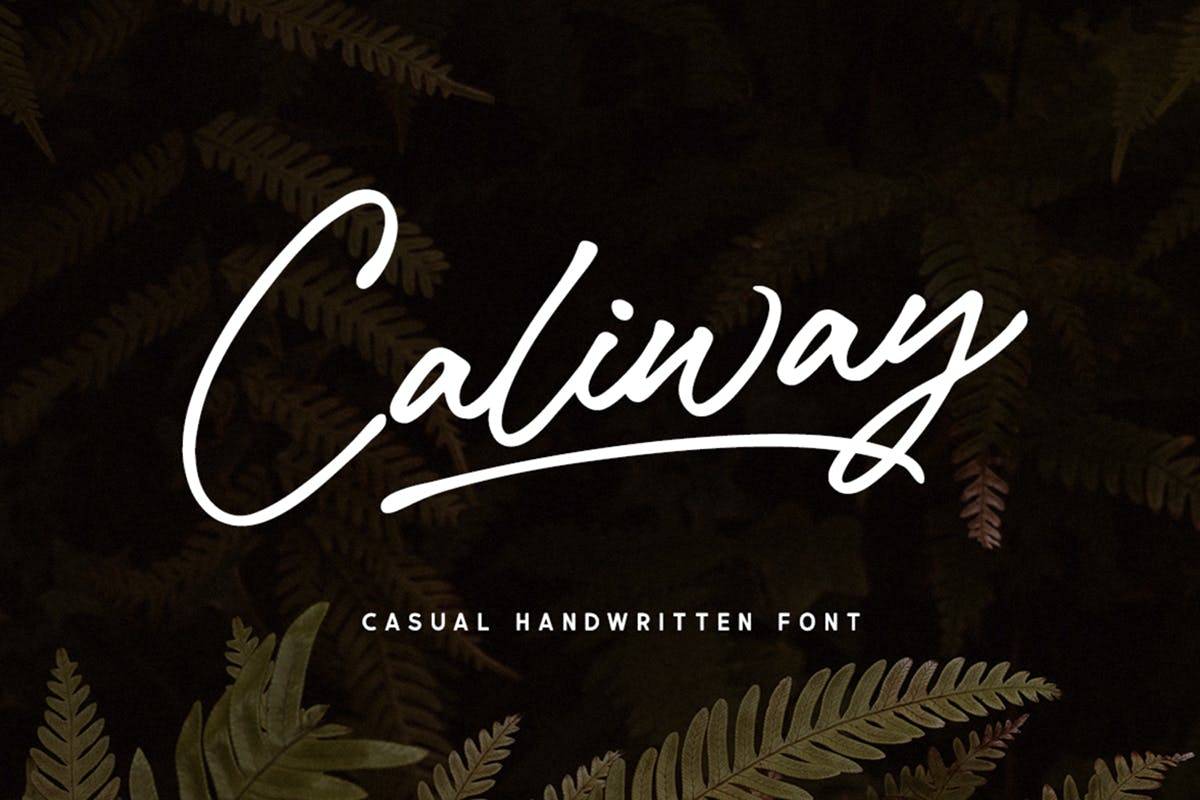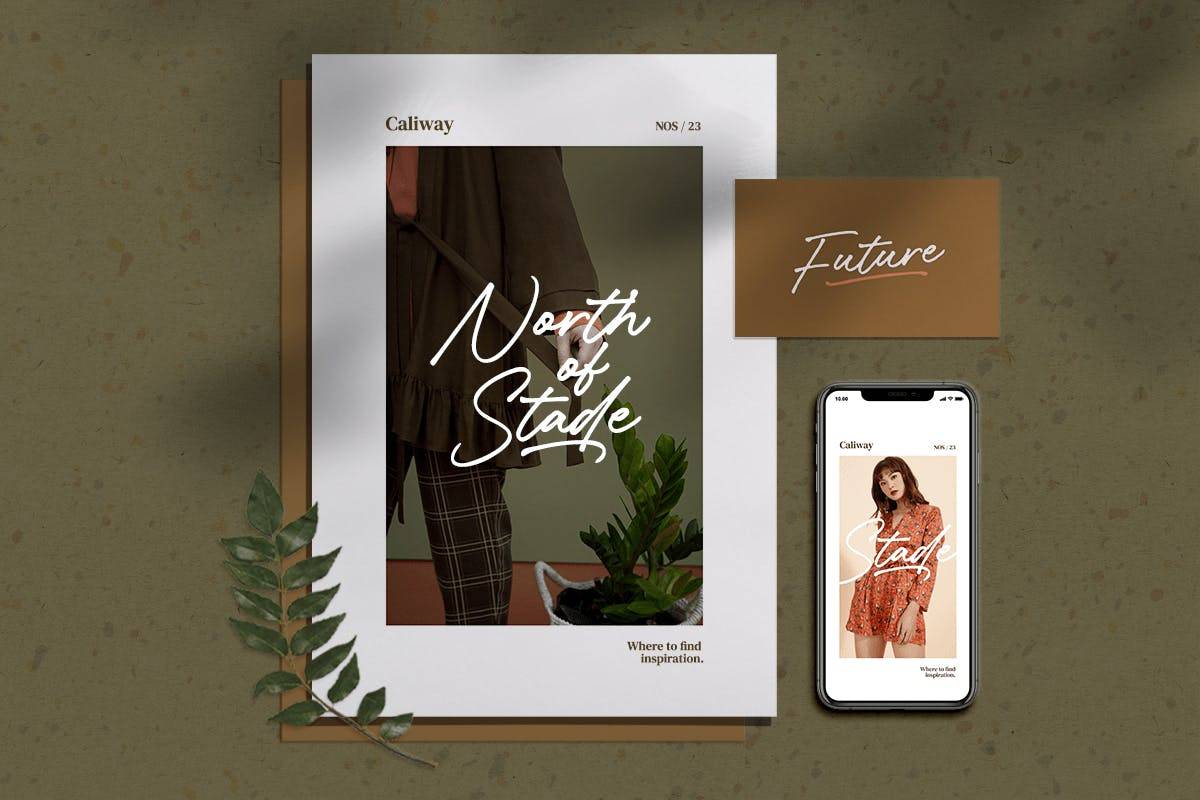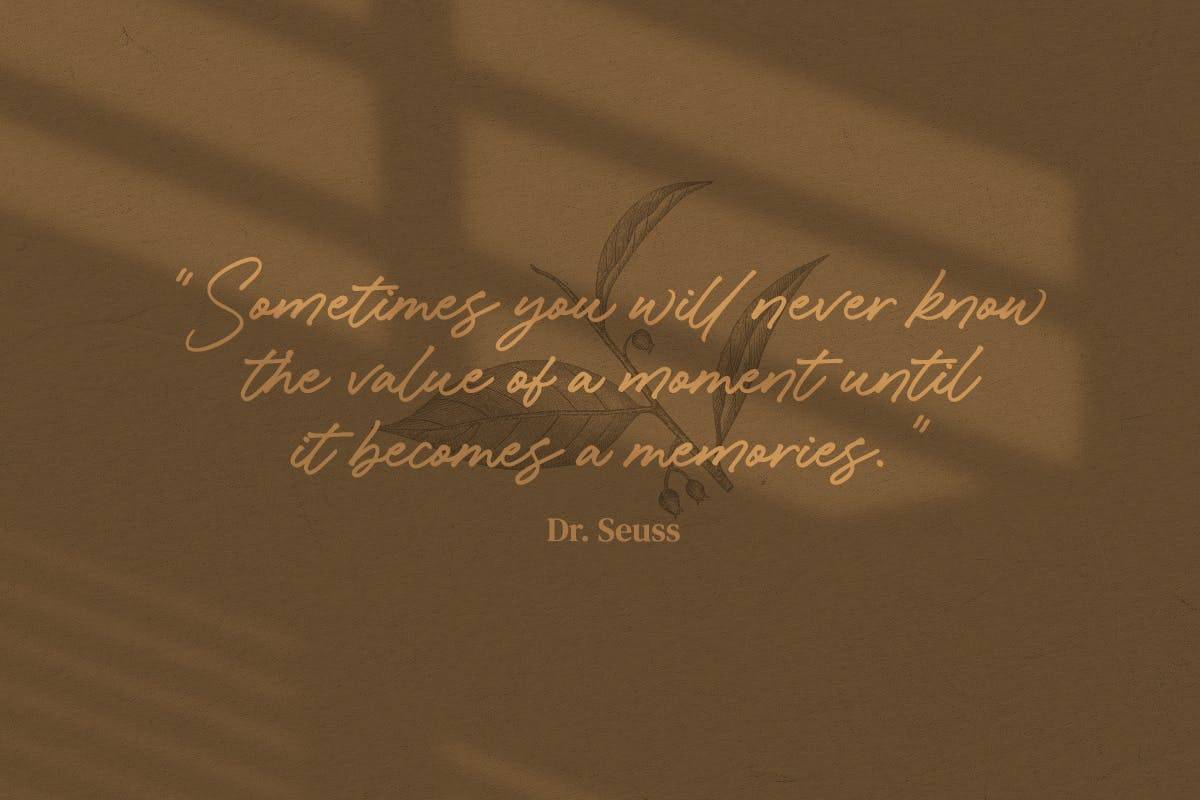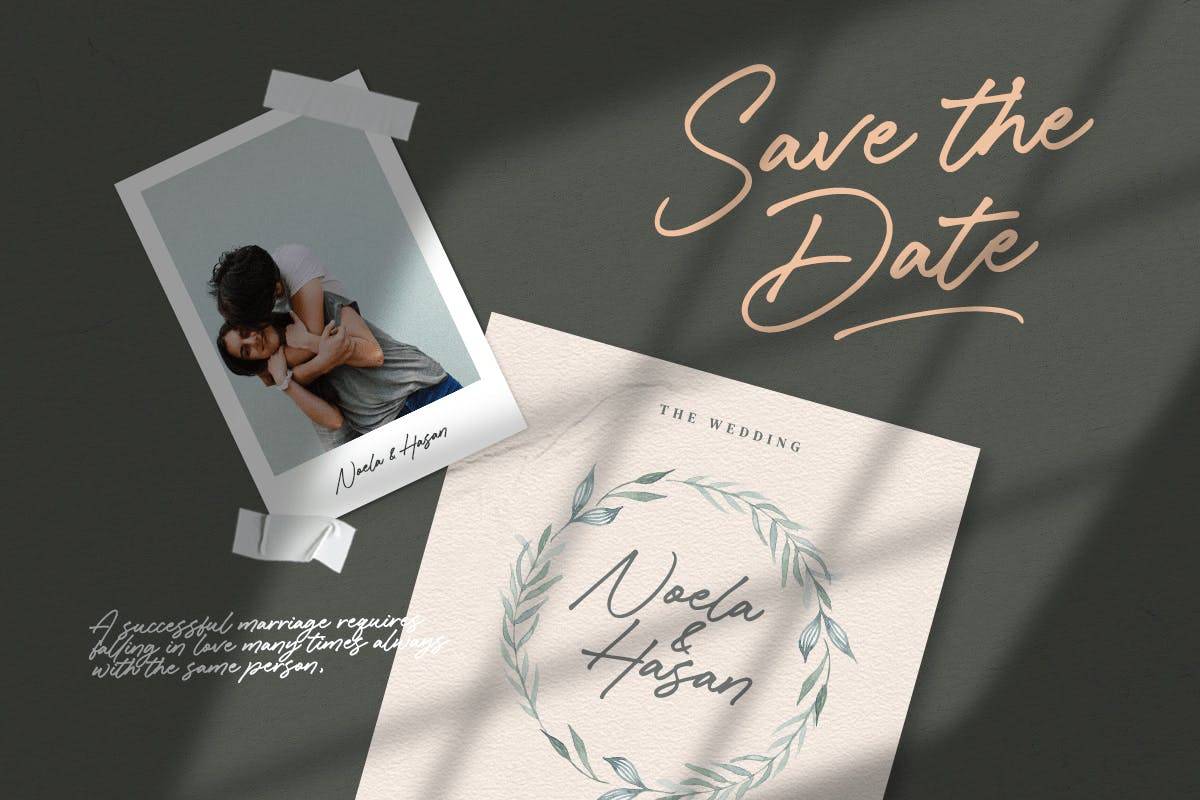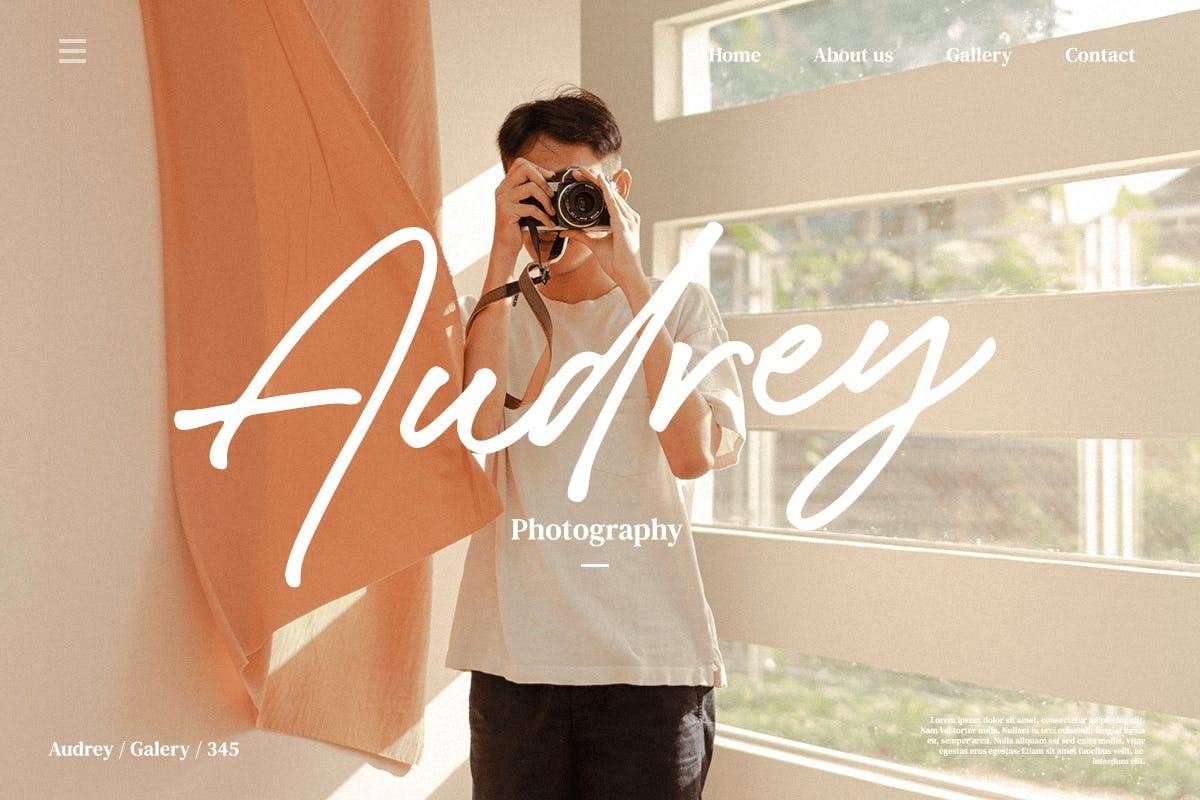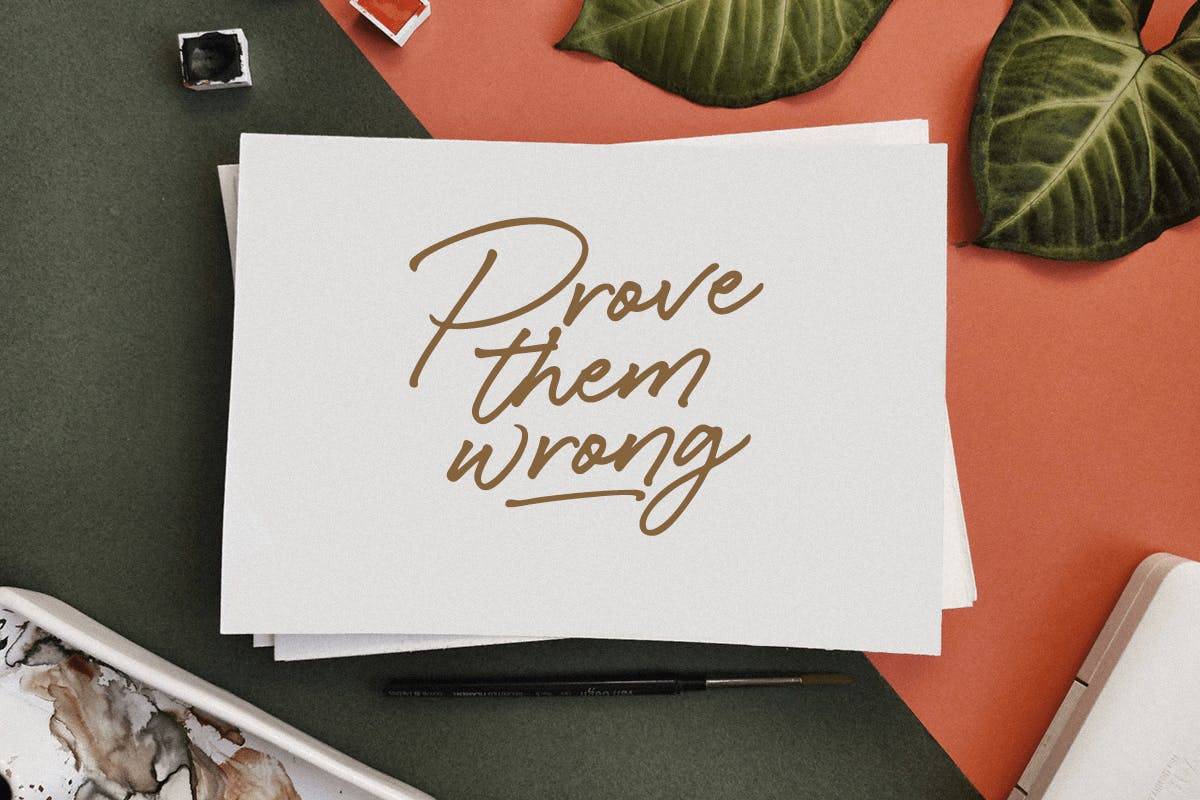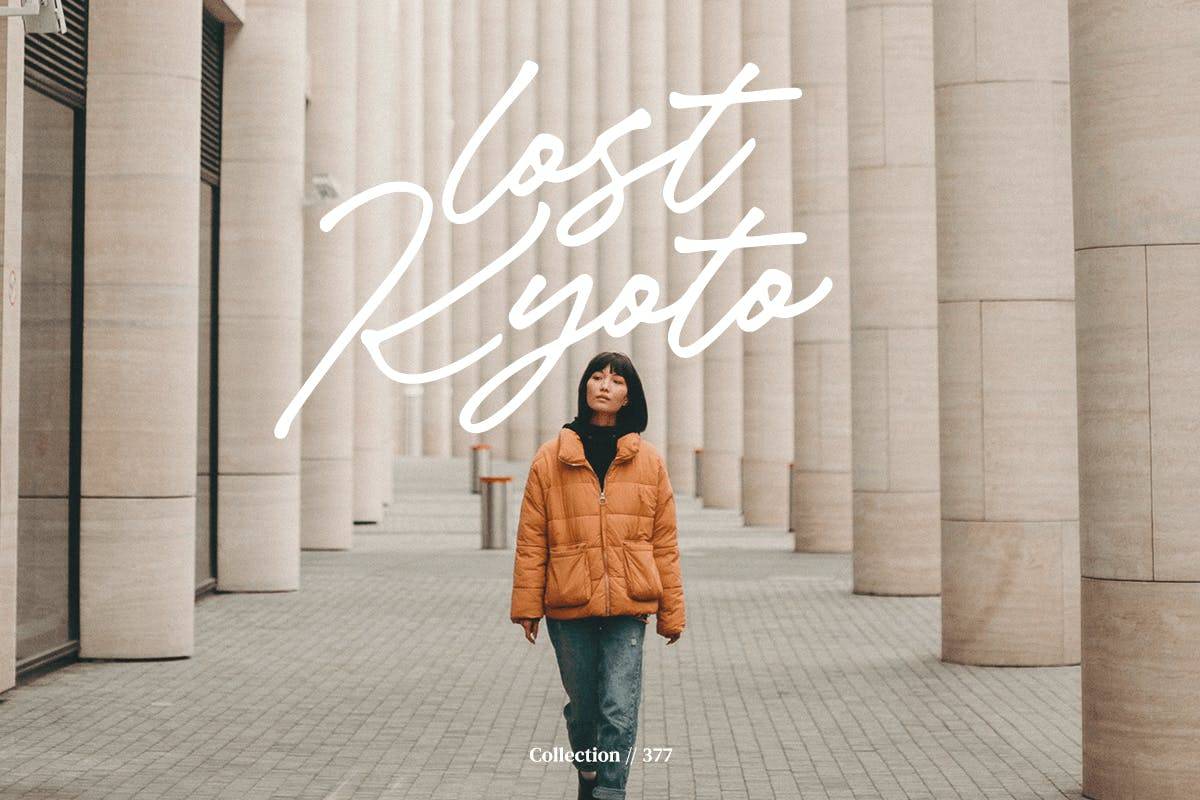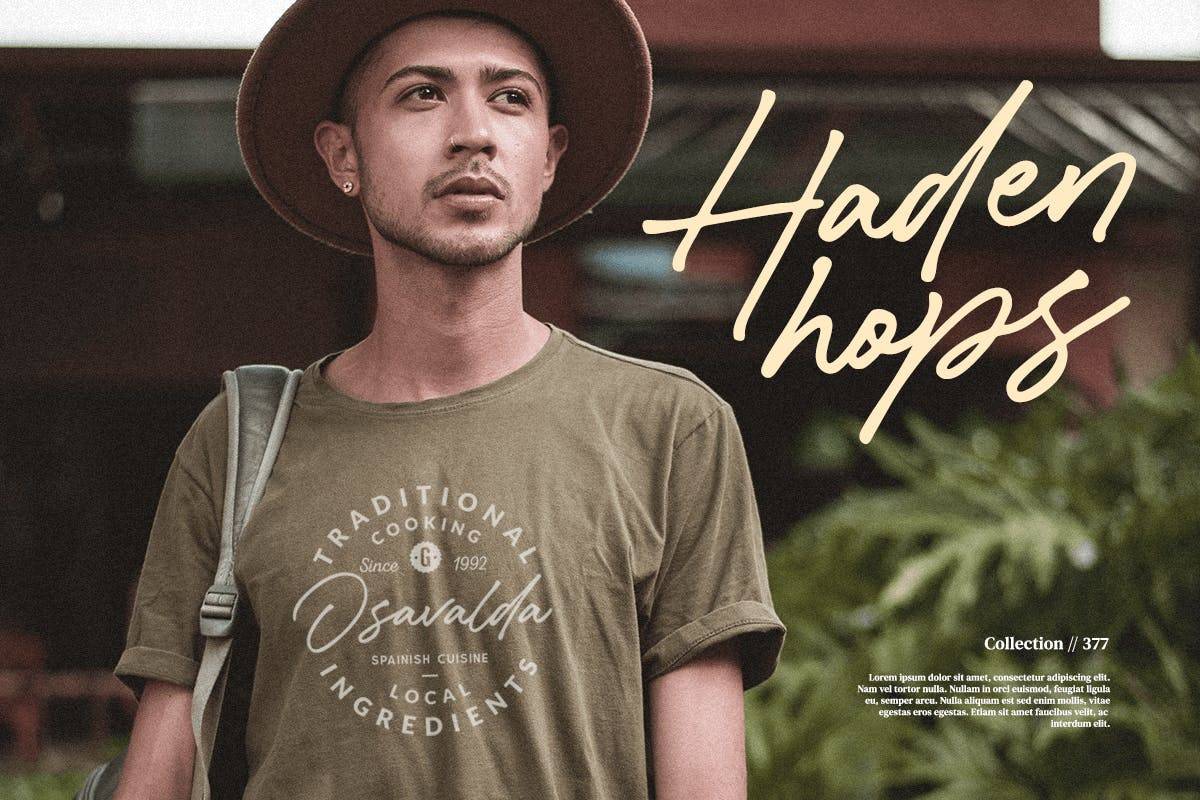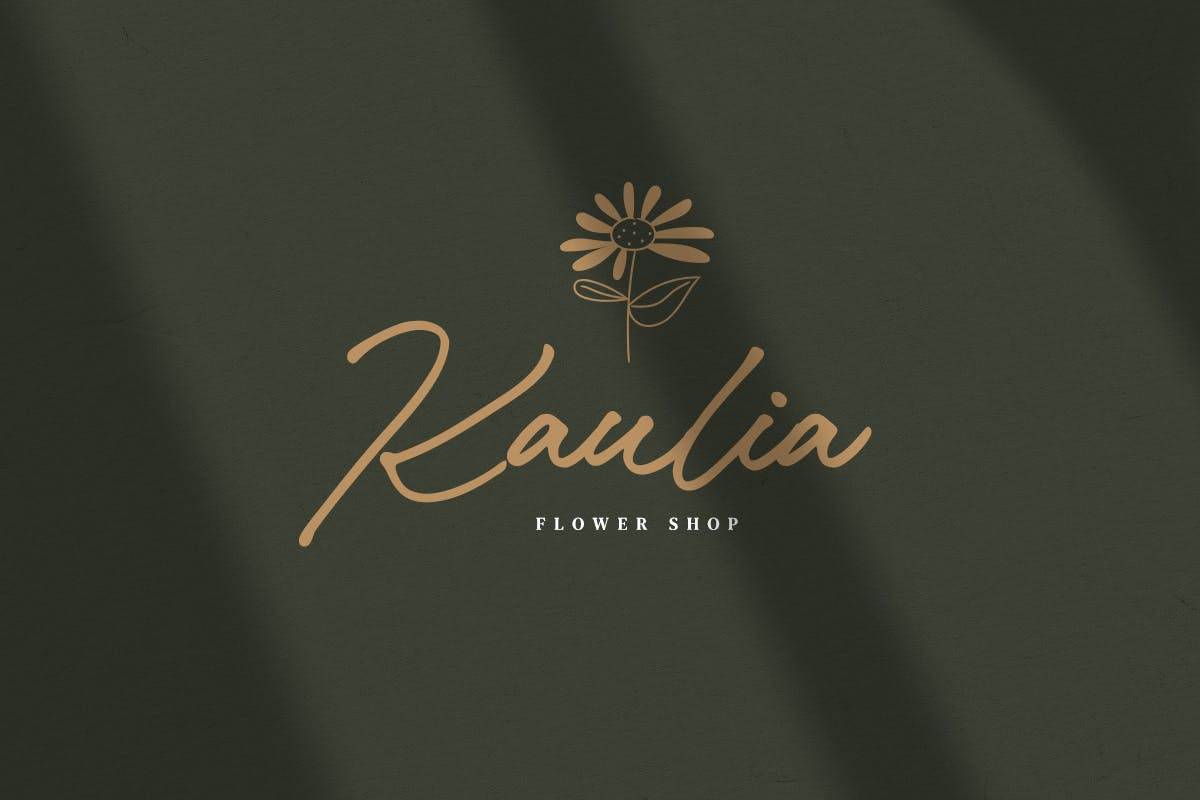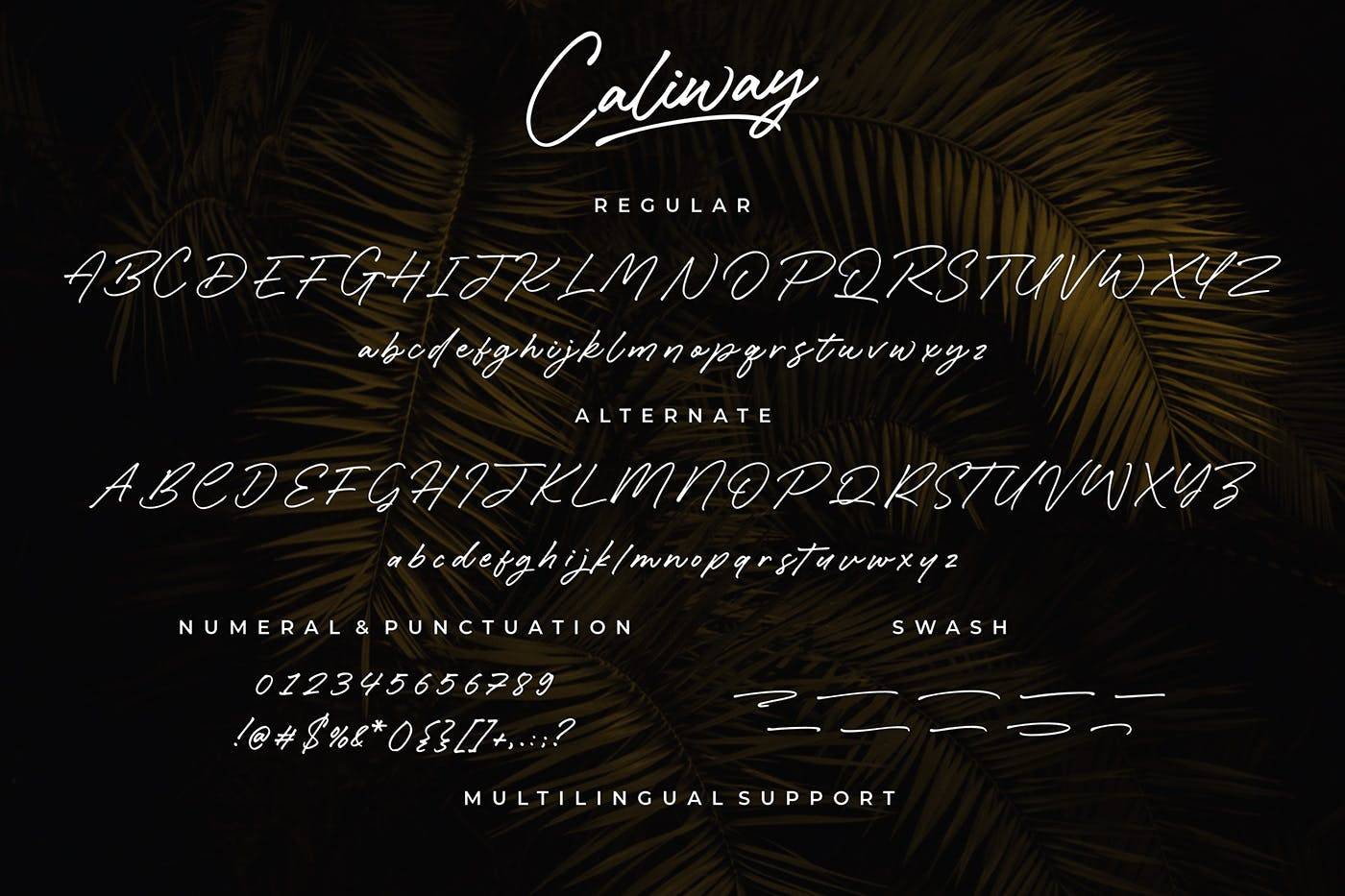
Caliway Casual Handwritten is an elegant and flowing script font that mimics natural handwriting with smooth, connected strokes and a light, airy feel. Its slender, slightly slanted letterforms offer a casual yet refined personality, making it perfect for creative projects like invitations, branding, and social media where a personal, stylish touch is desired. This font works especially well in headlines and logos, adding a sense of warmth and sophistication without feeling overly formal.
Caliway Casual Handwritten Font
About Caliway Casual Handwritten Font
| Font family | Caliway Casual Handwritten Font |